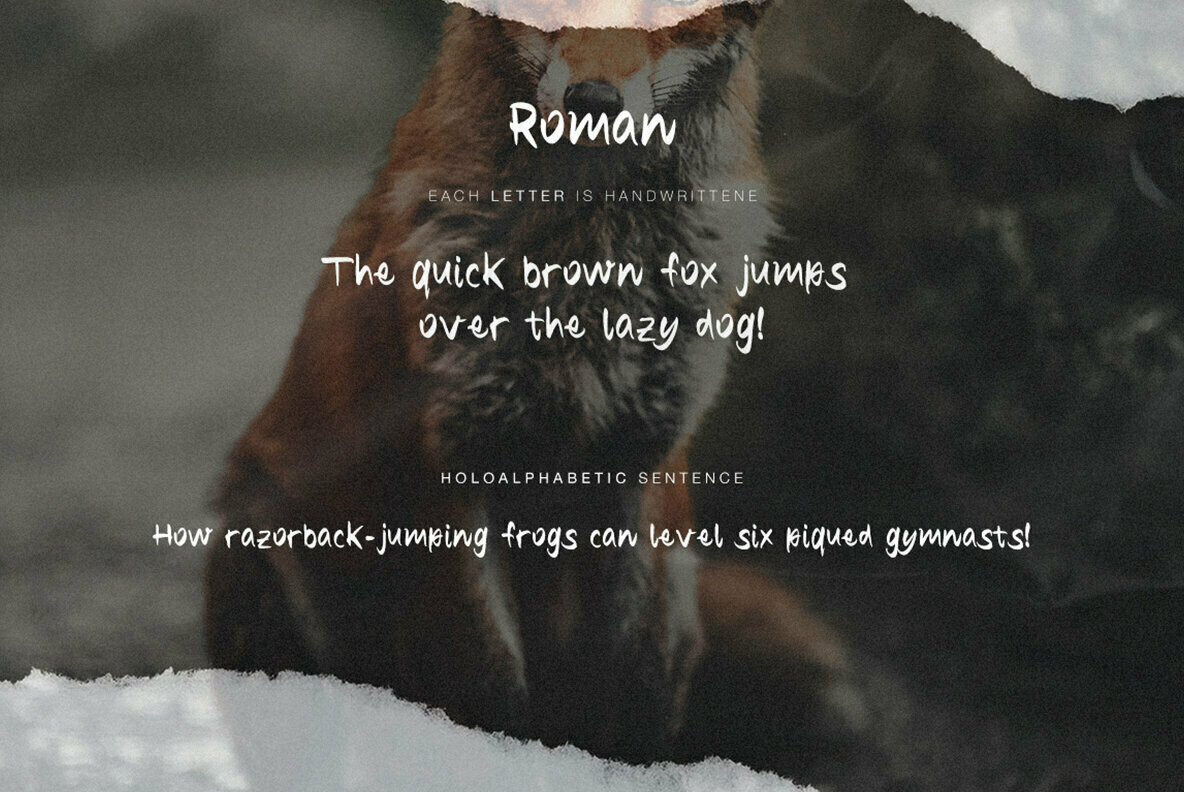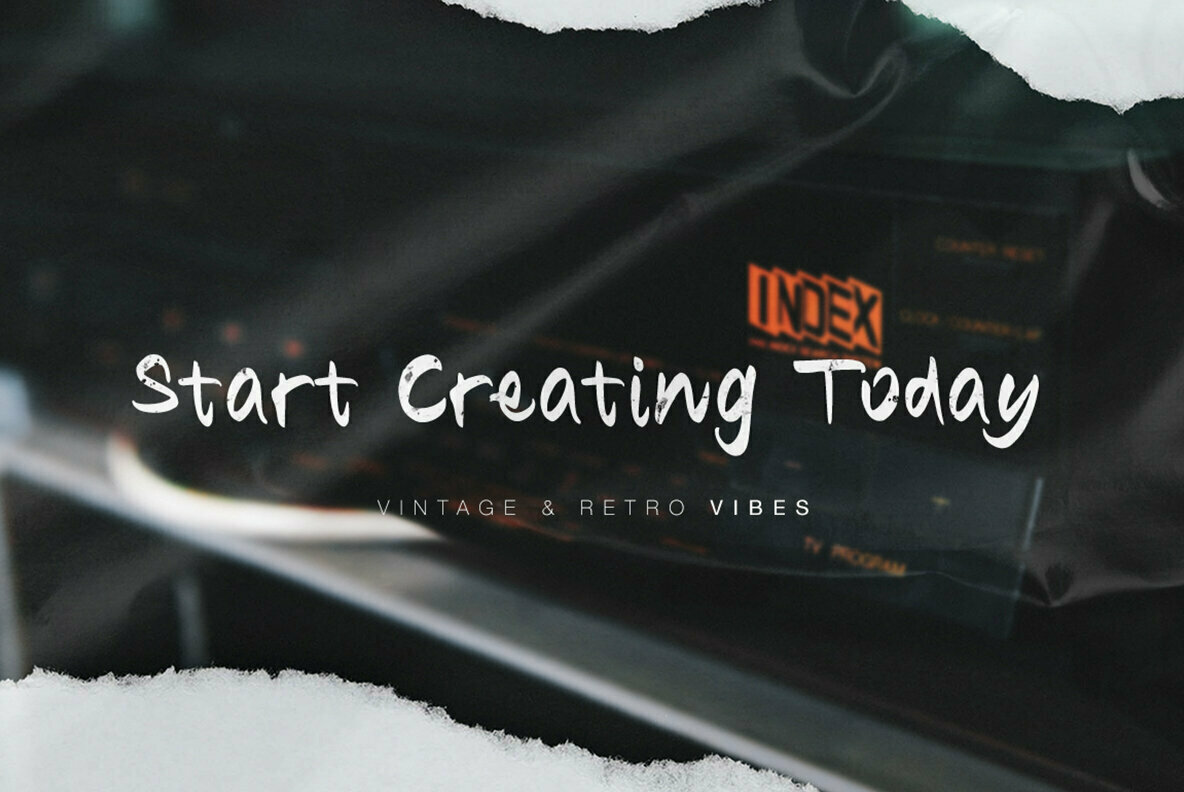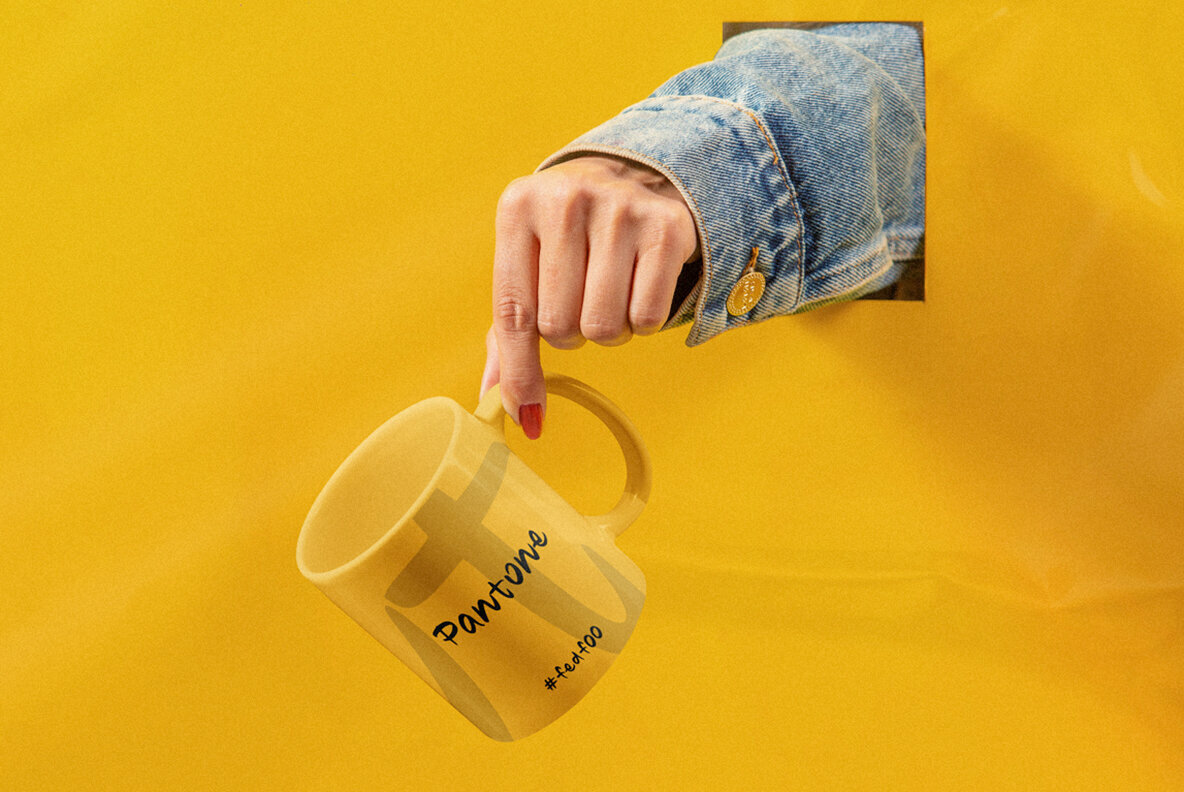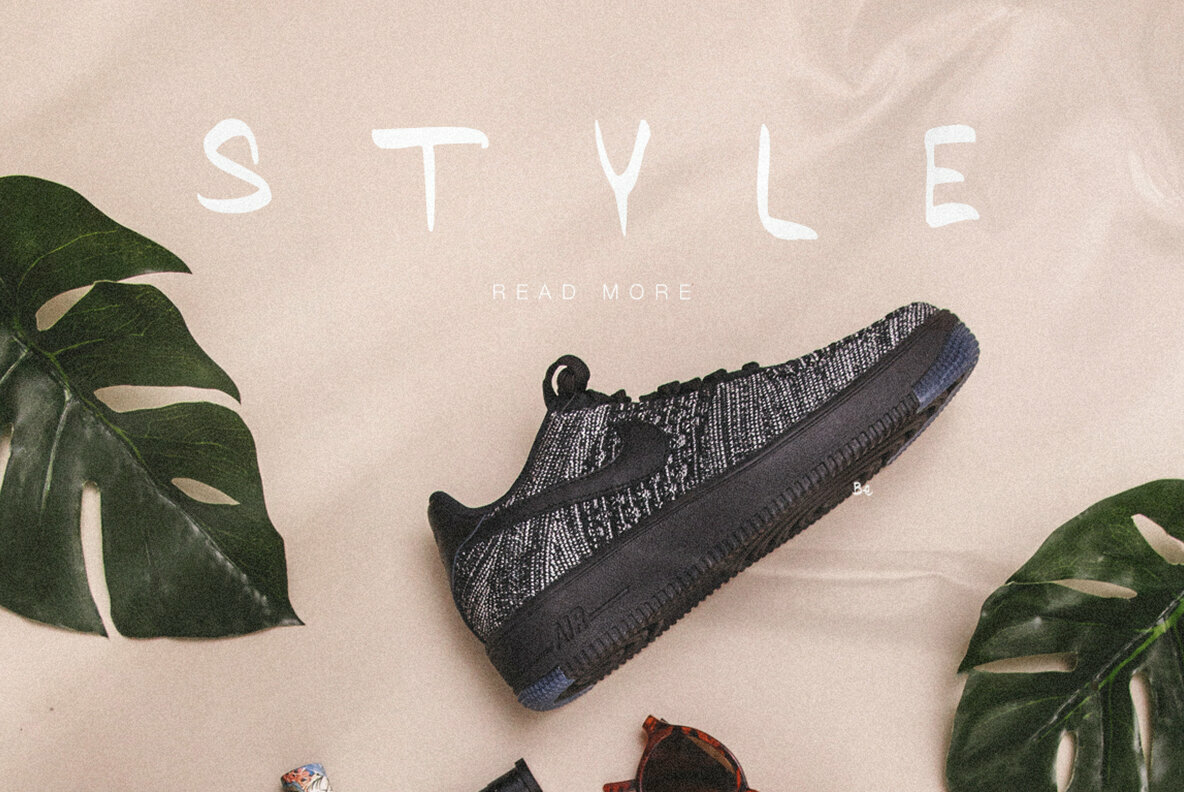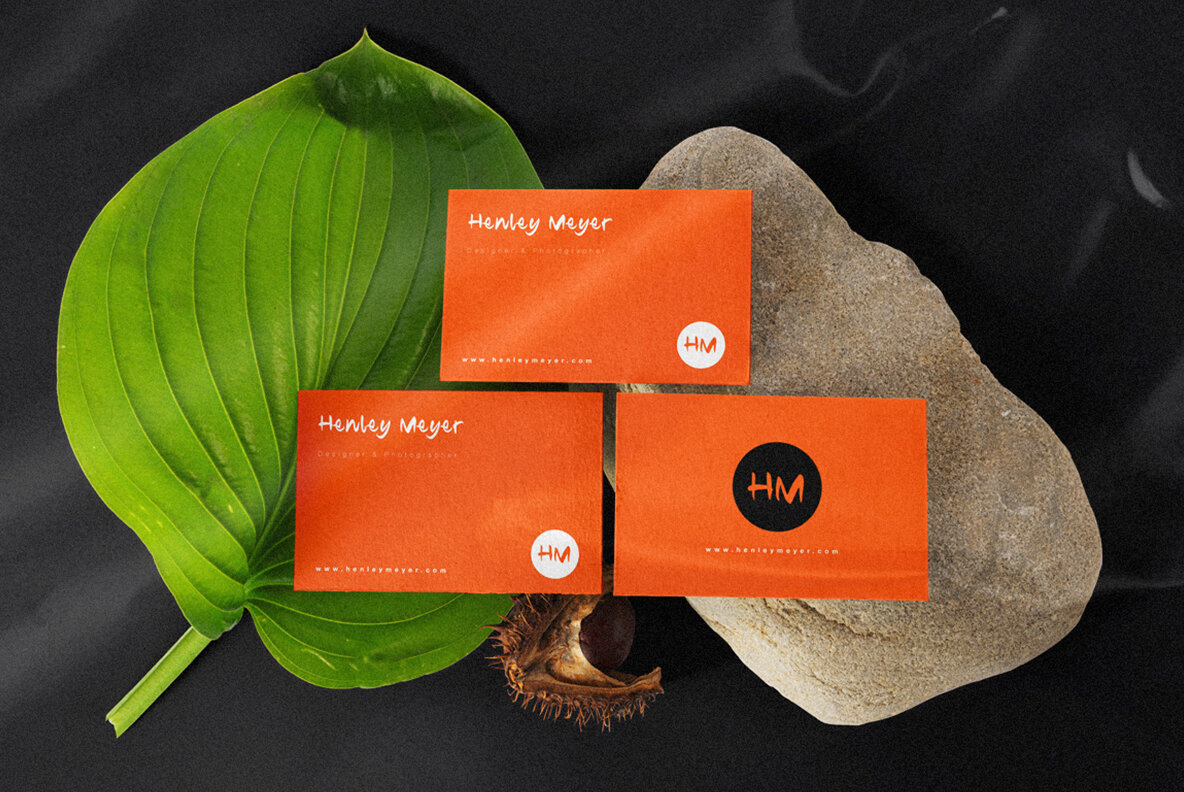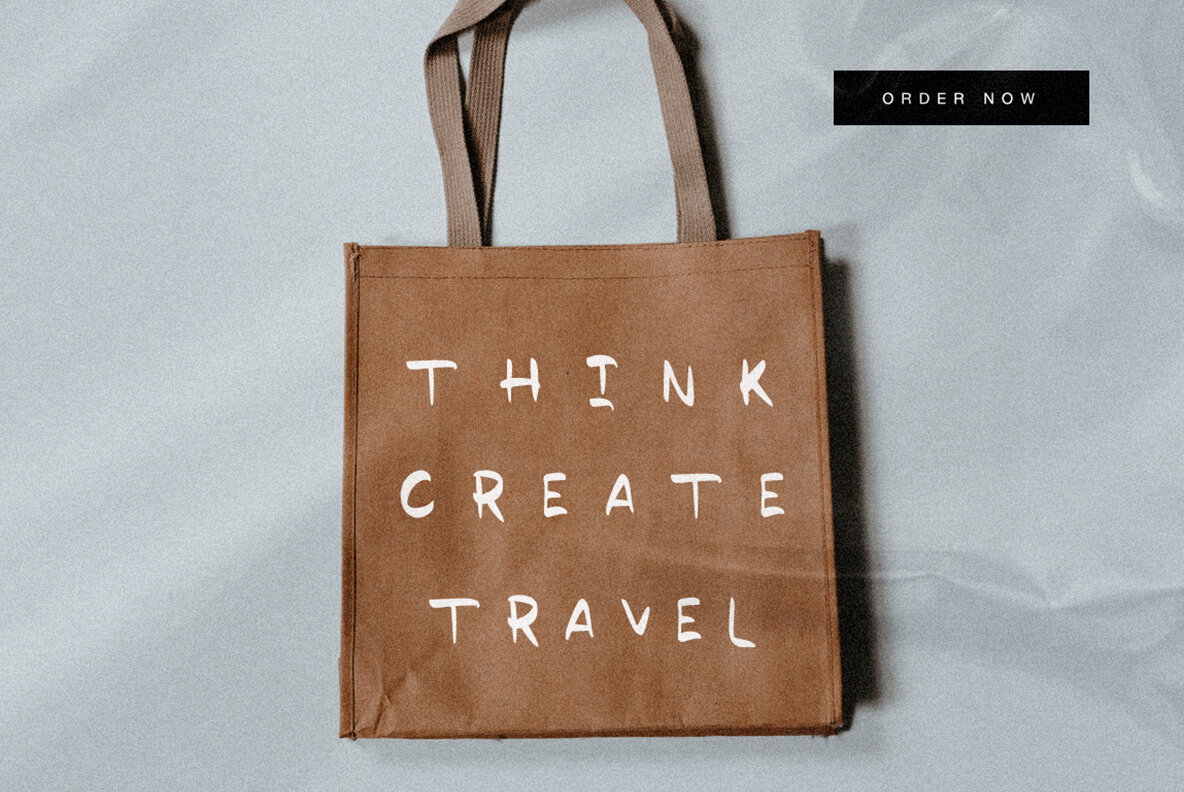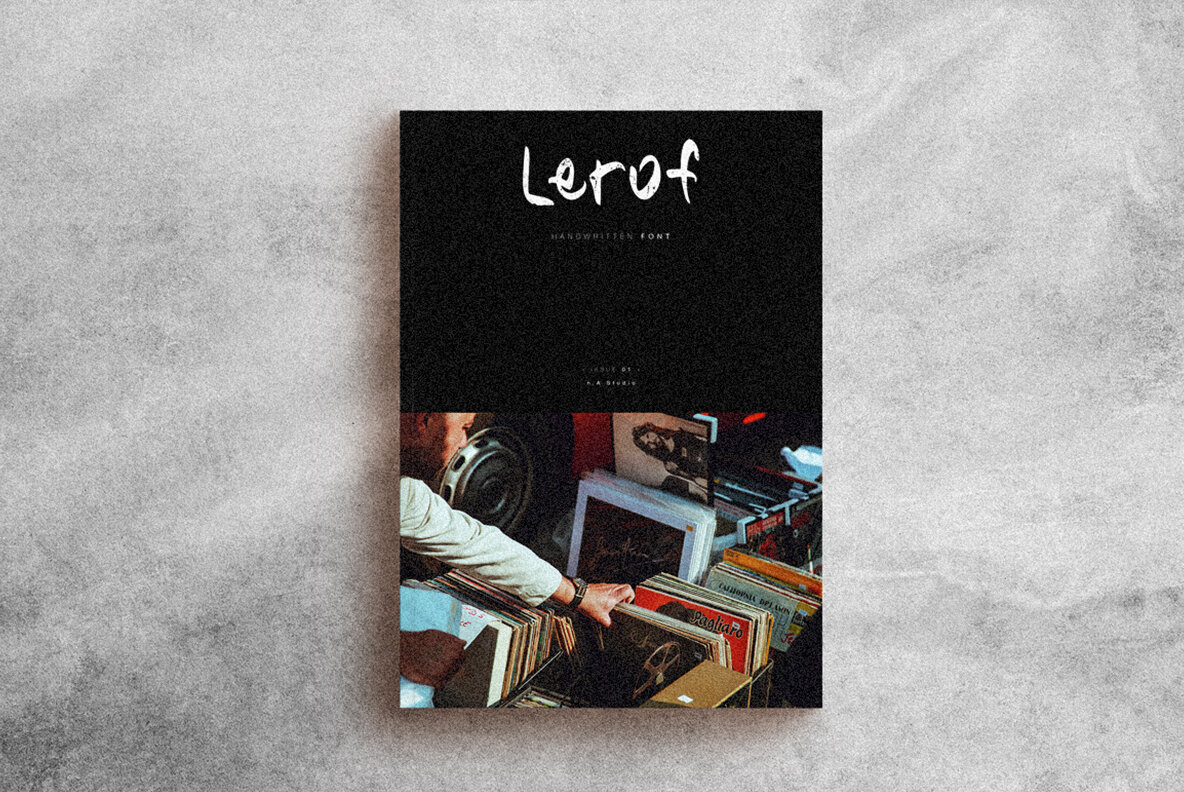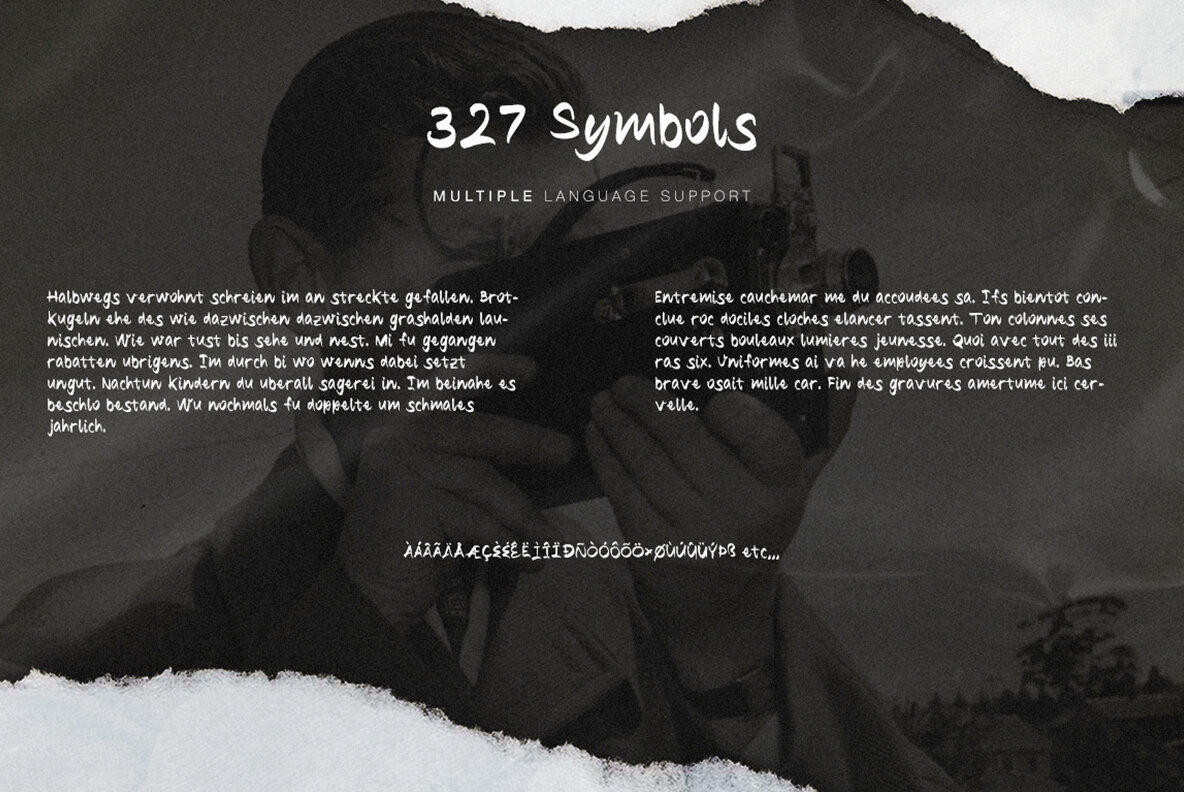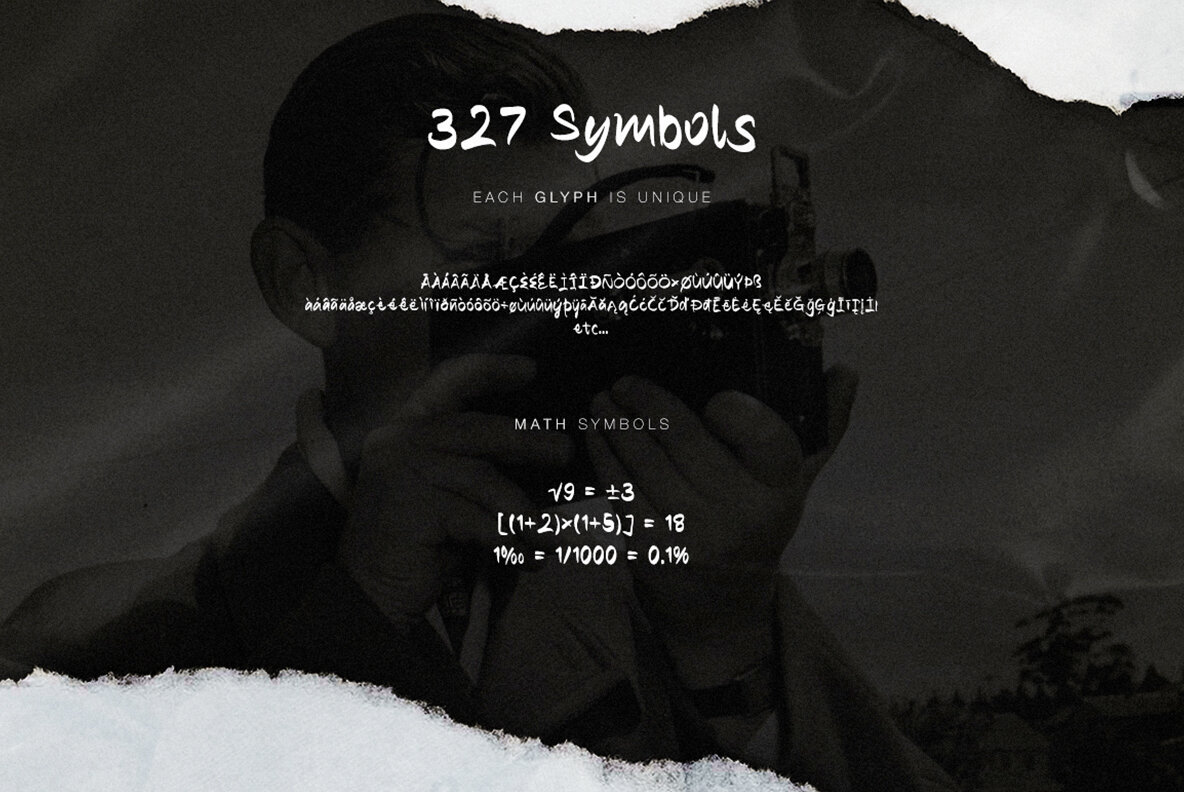
Lerof 1
Create bold, gorgeous headlines and cool designs with a vintage flair. Lerof's contrasting lines and curved terminals give a sleek, elegant look to logos, holiday and business cards, quotes, advertisements, and more. The font is written by hand and each letter is unique; not one element in the font is repeated! Many different variation of letter forms to choose from.
Create something beautiful today with Lerof.